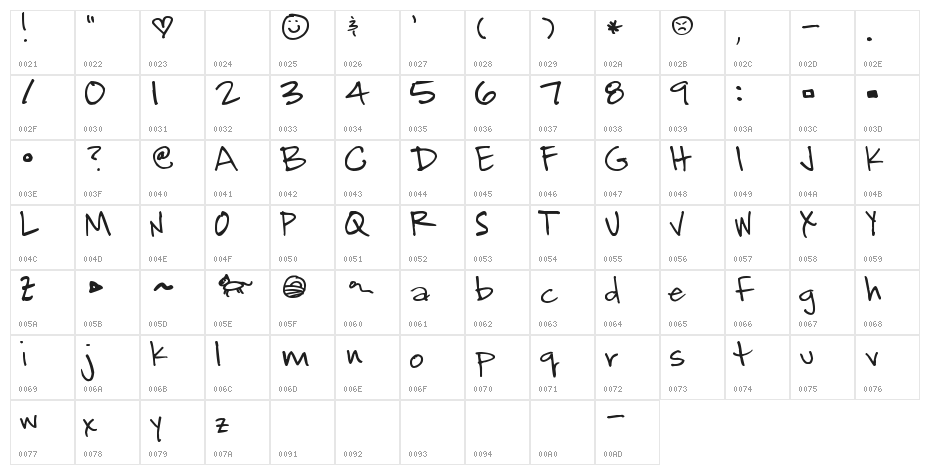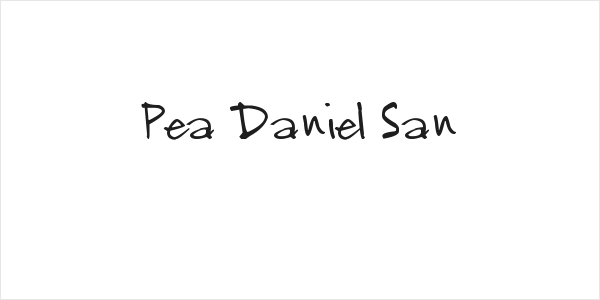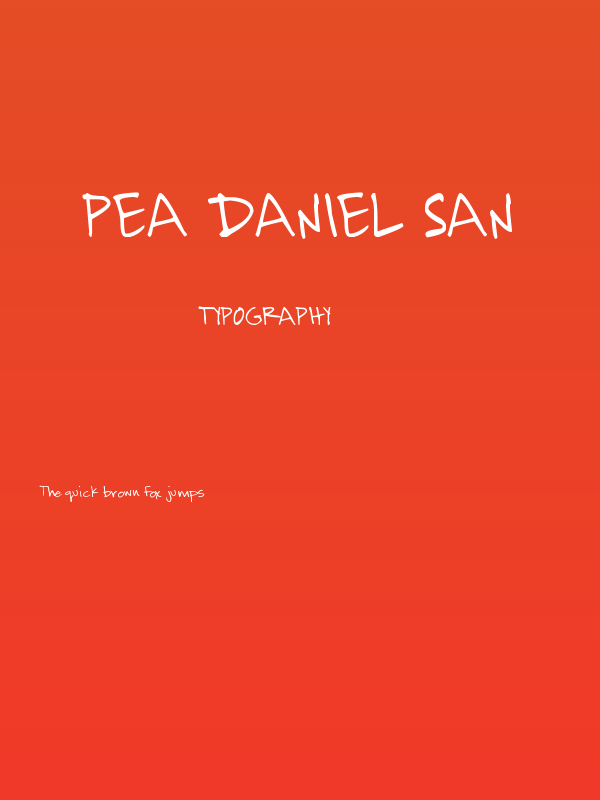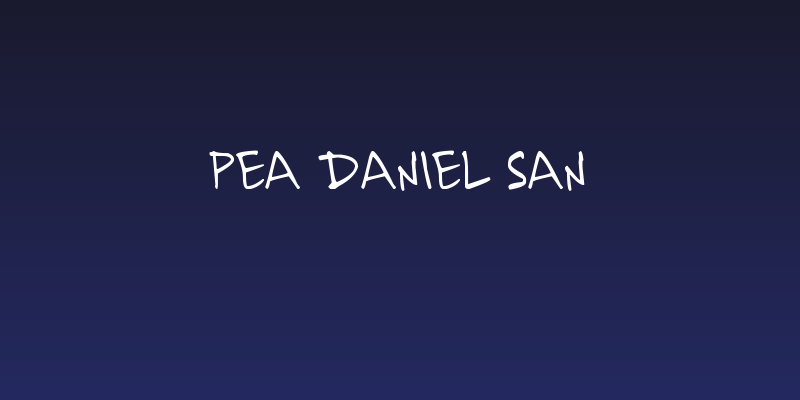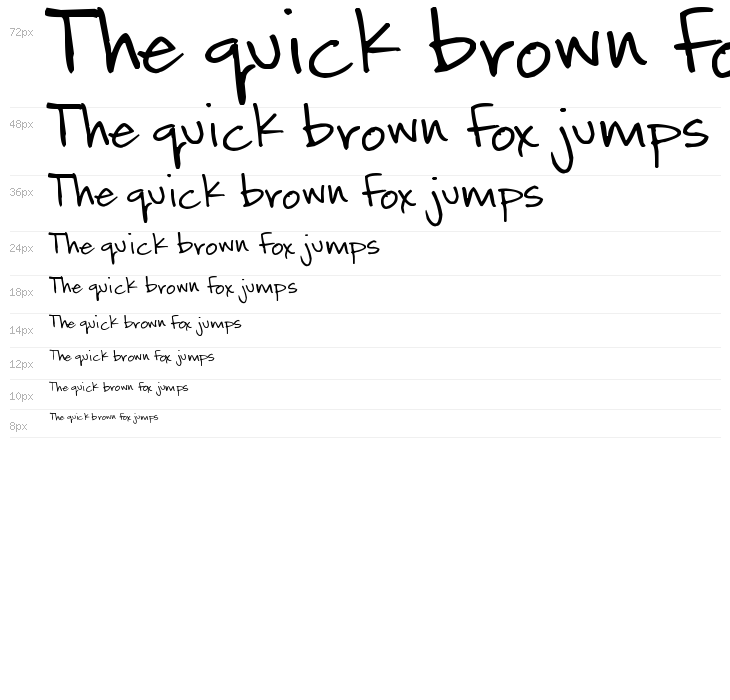
Pea Daniel San Font
Pea Daniel San Description
This playful, handwritten font exudes a casual and friendly vibe, characterized by its uneven strokes and slightly irregular baseline. The letters are bold and rounded, giving a sense of approachability and warmth. The uppercase and lowercase letters maintain a consistent style, with a slight slant that adds to the informal feel. Numbers and special characters are crafted with the same playful touch, making them suitable for creative projects. The font's overall appearance is lively and energetic, perfect for adding a personal touch to any design.
| Overall Style | Casual and Playful |
| Proposed Projects | Ideal for greeting cards, children's books, informal invitations, and playful branding. |